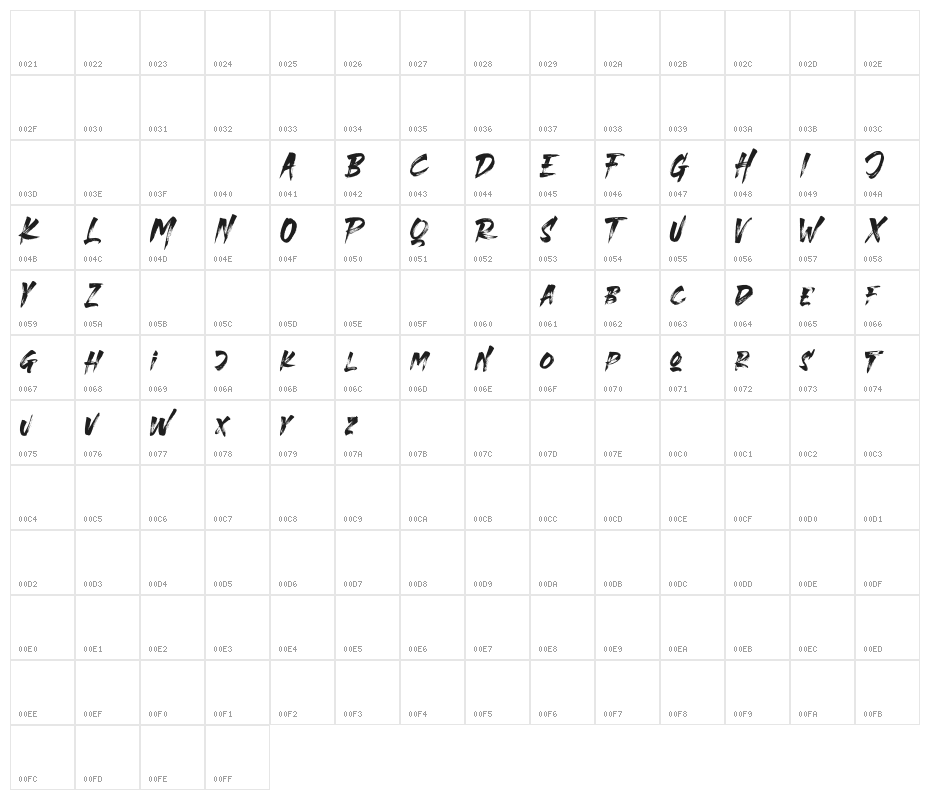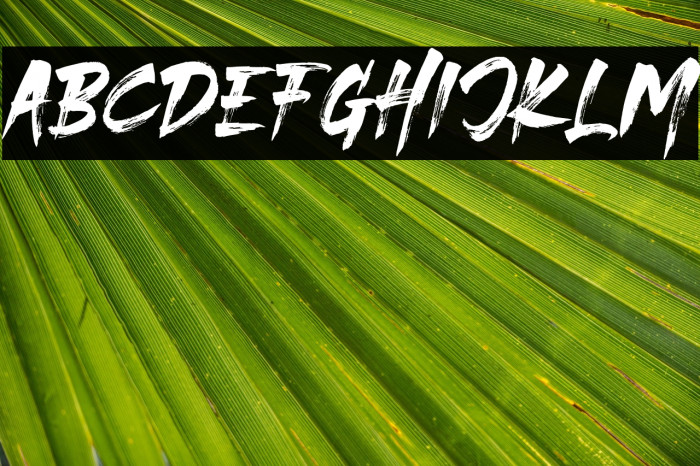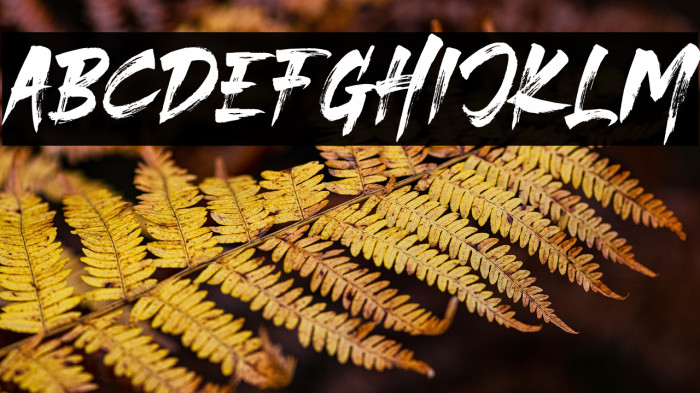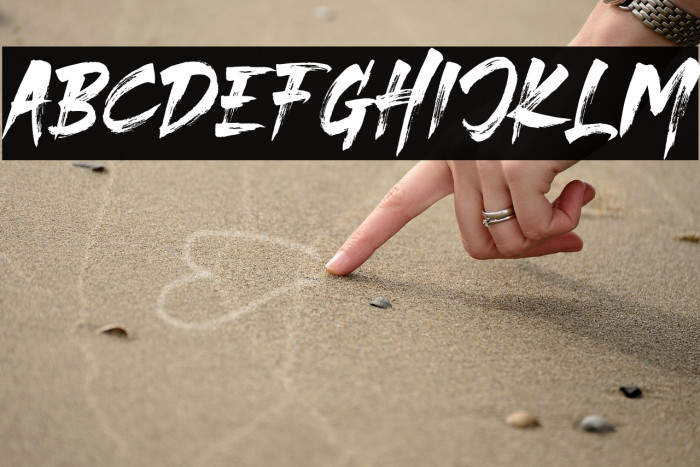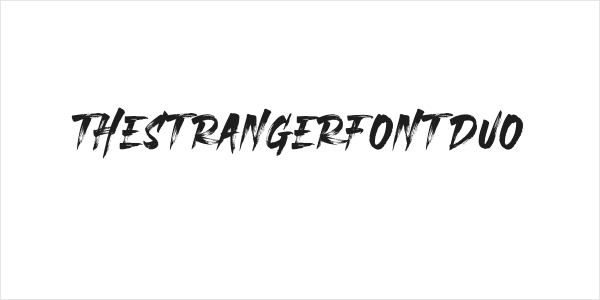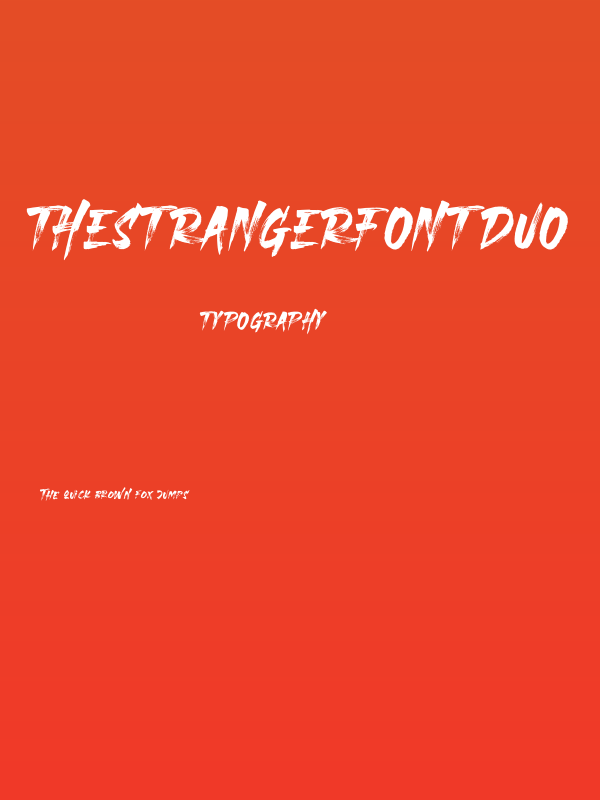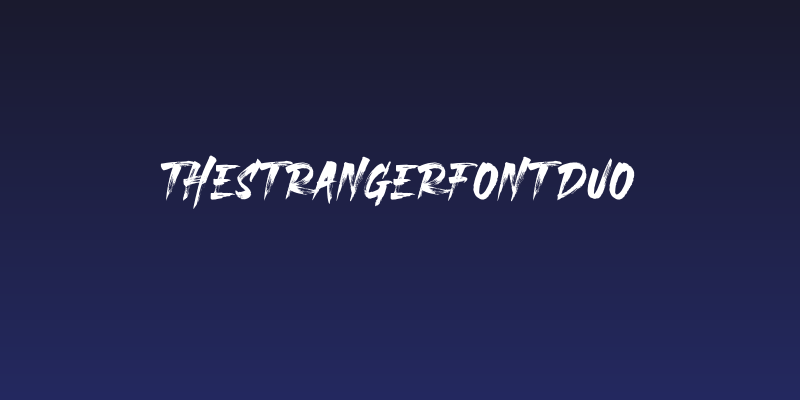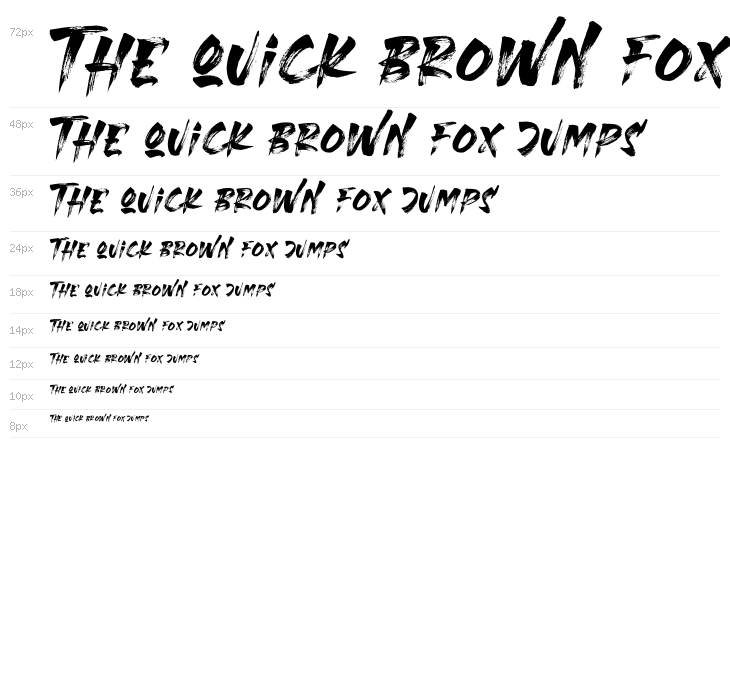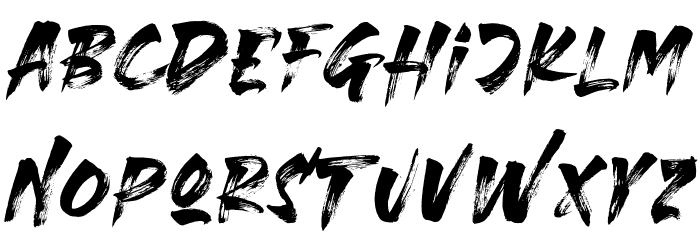
THESTRANGERFONTDUO Font
THESTRANGERFONTDUO Description
This font features a bold, brush-like style with a dynamic and energetic appearance. The strokes are thick and uneven, giving it a hand-painted look that is both expressive and artistic. The letters have a slightly slanted orientation, adding to the sense of movement and fluidity. The texture within each character varies, with some areas appearing more solid and others more textured, creating a sense of depth and dimension. This font is highly decorative and stands out with its unique, edgy aesthetic.
| Proposed Projects | Ideal for projects that require a strong visual impact, such as posters, album covers, branding for creative industries, or event invitations. |